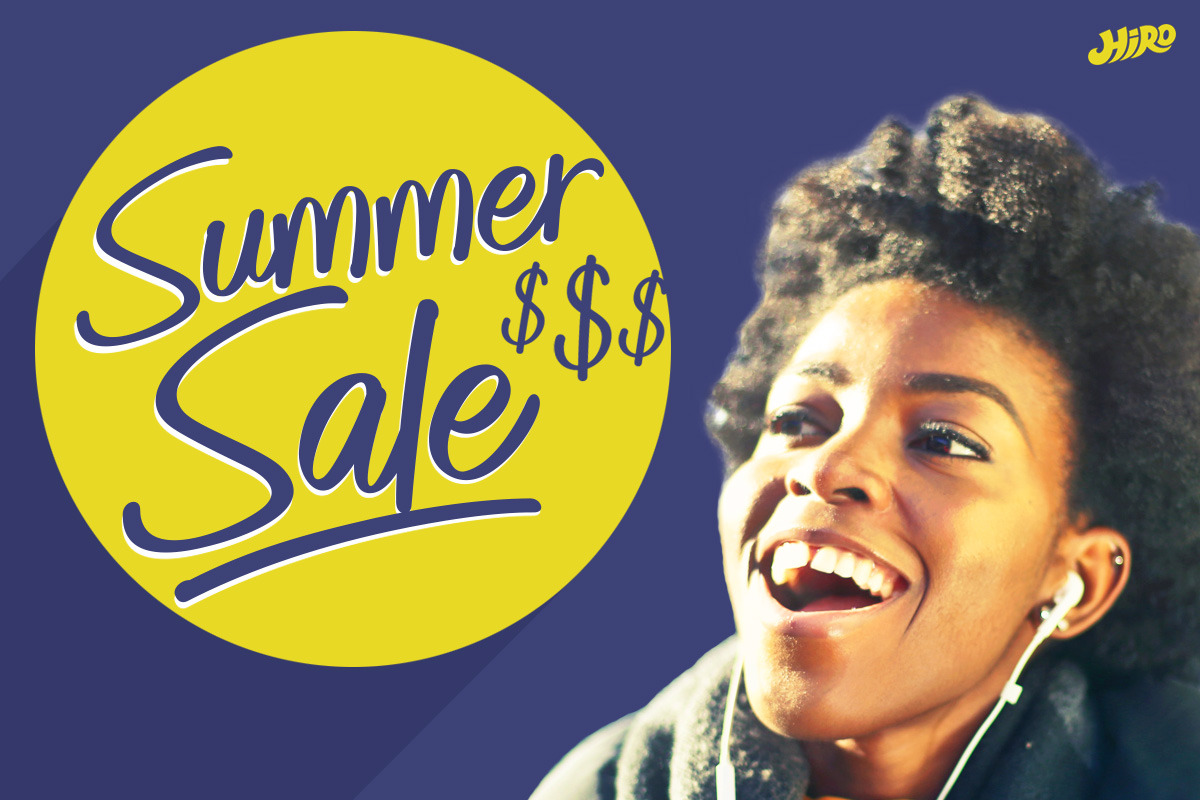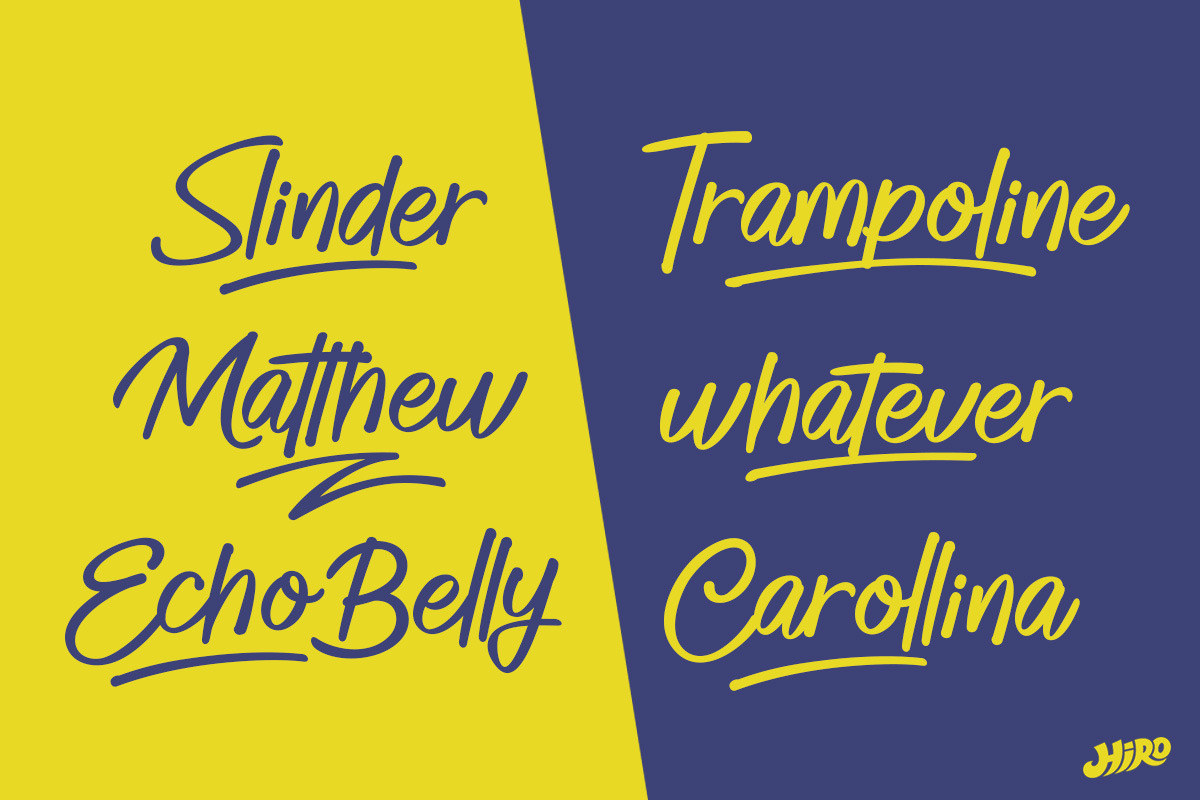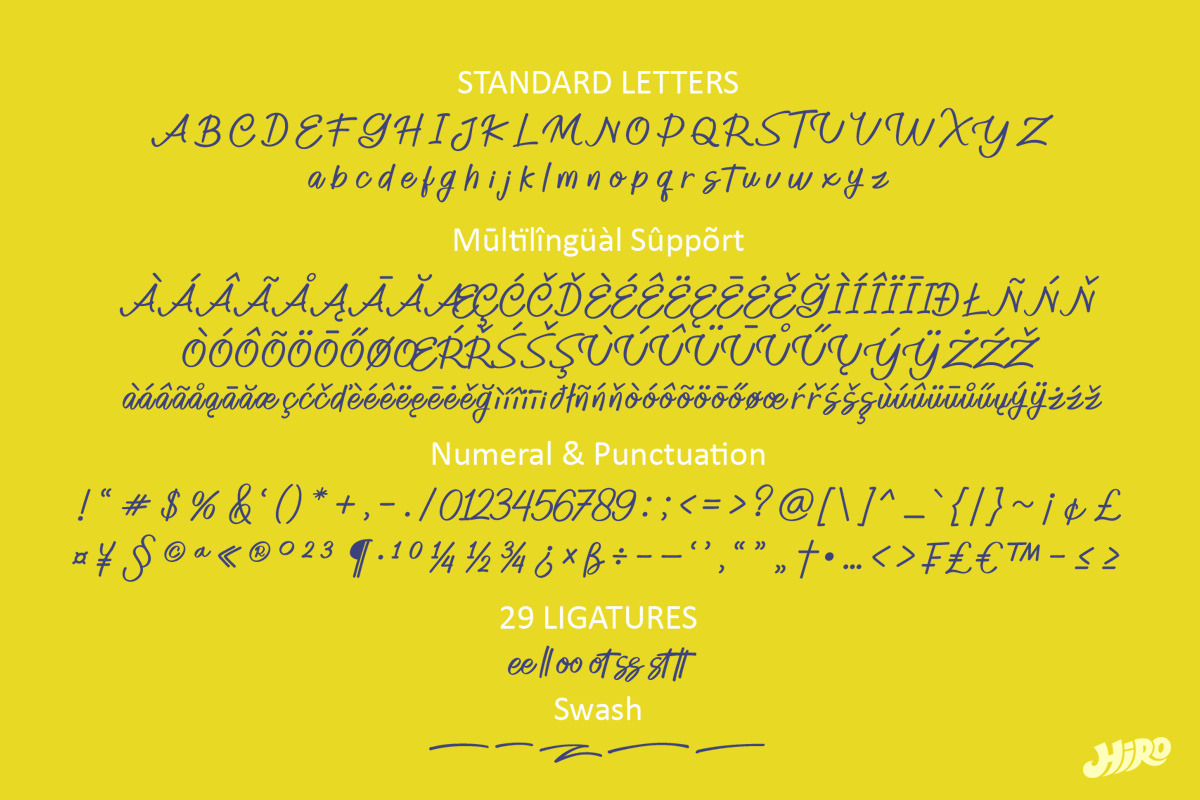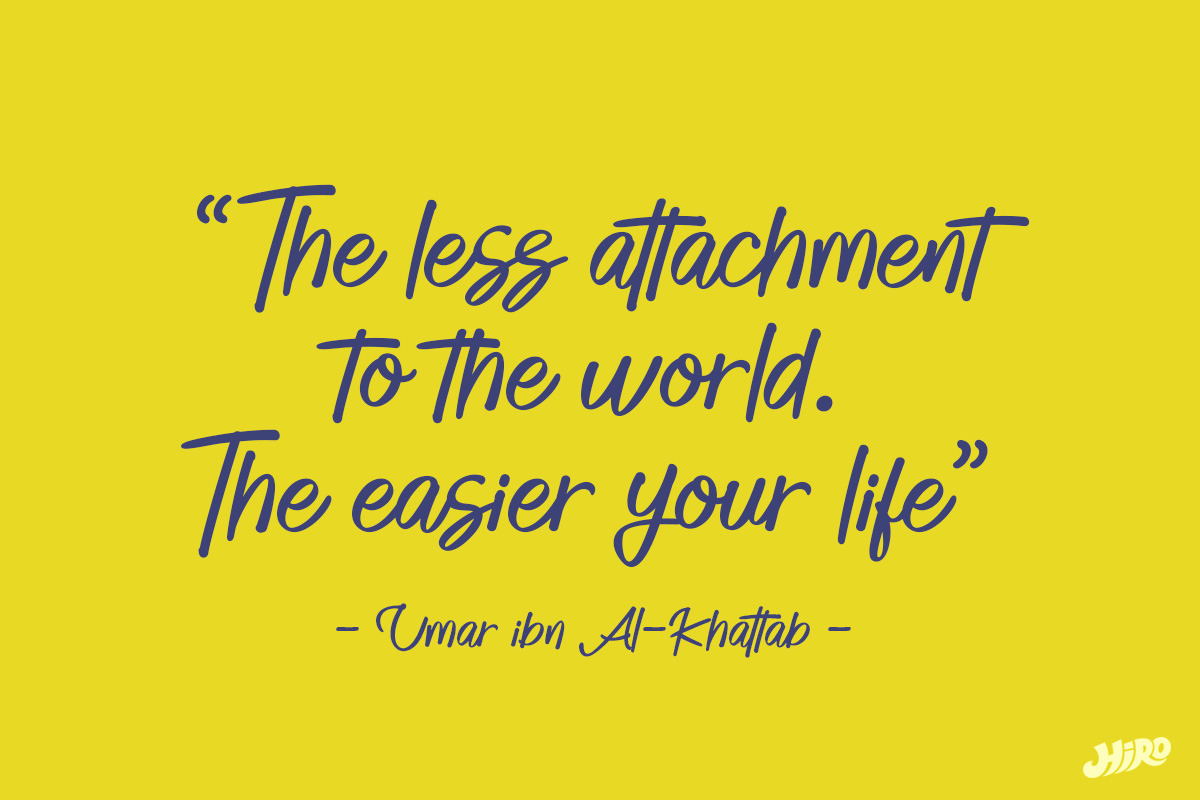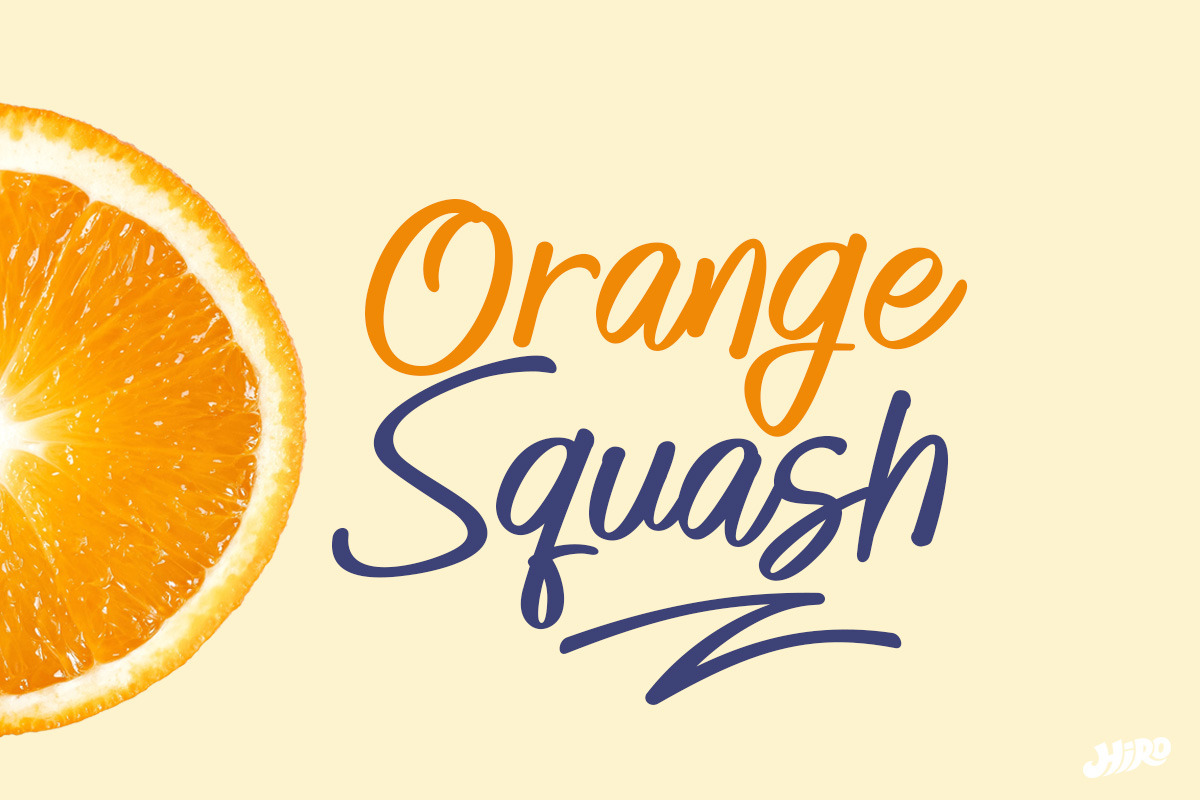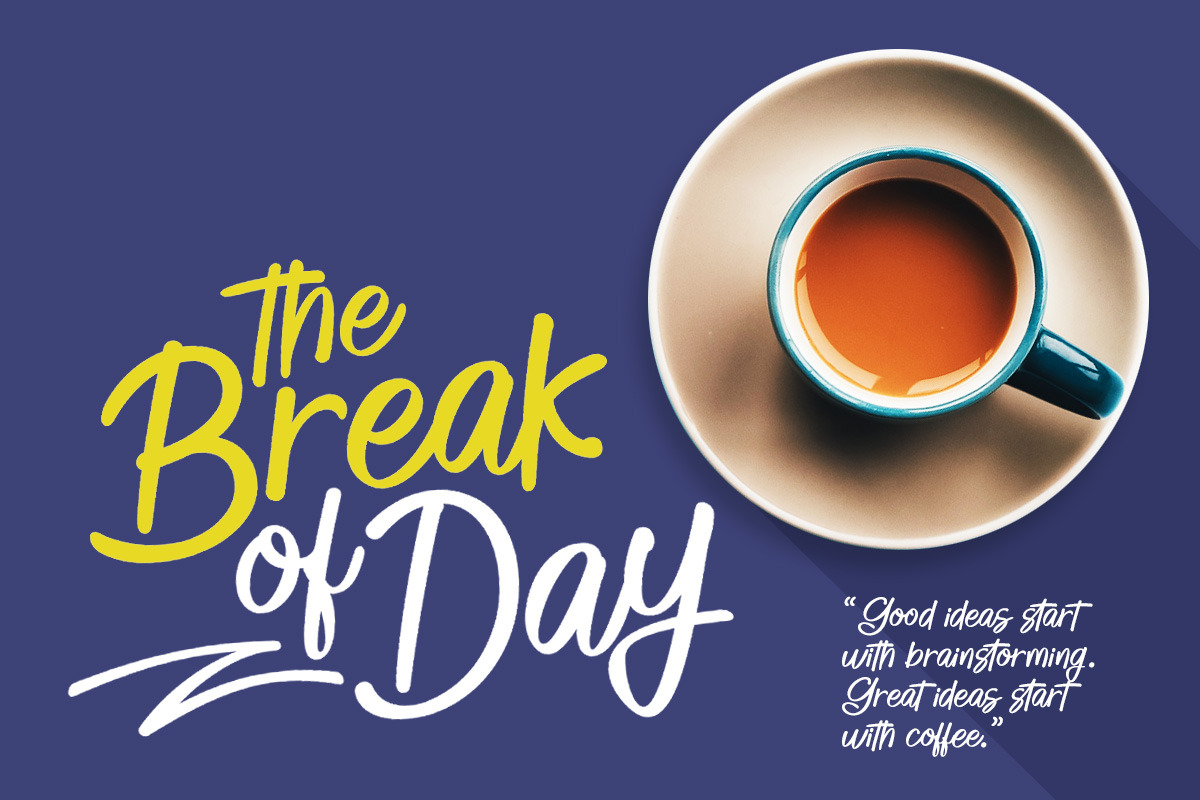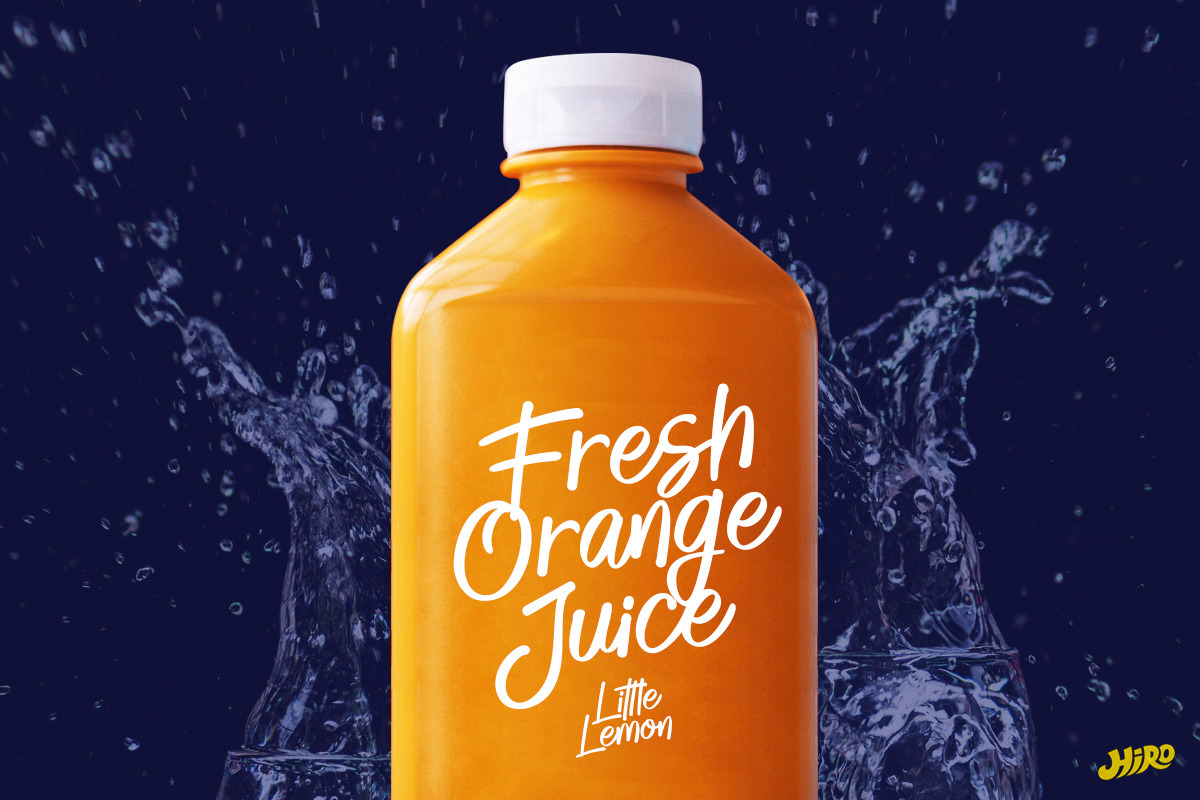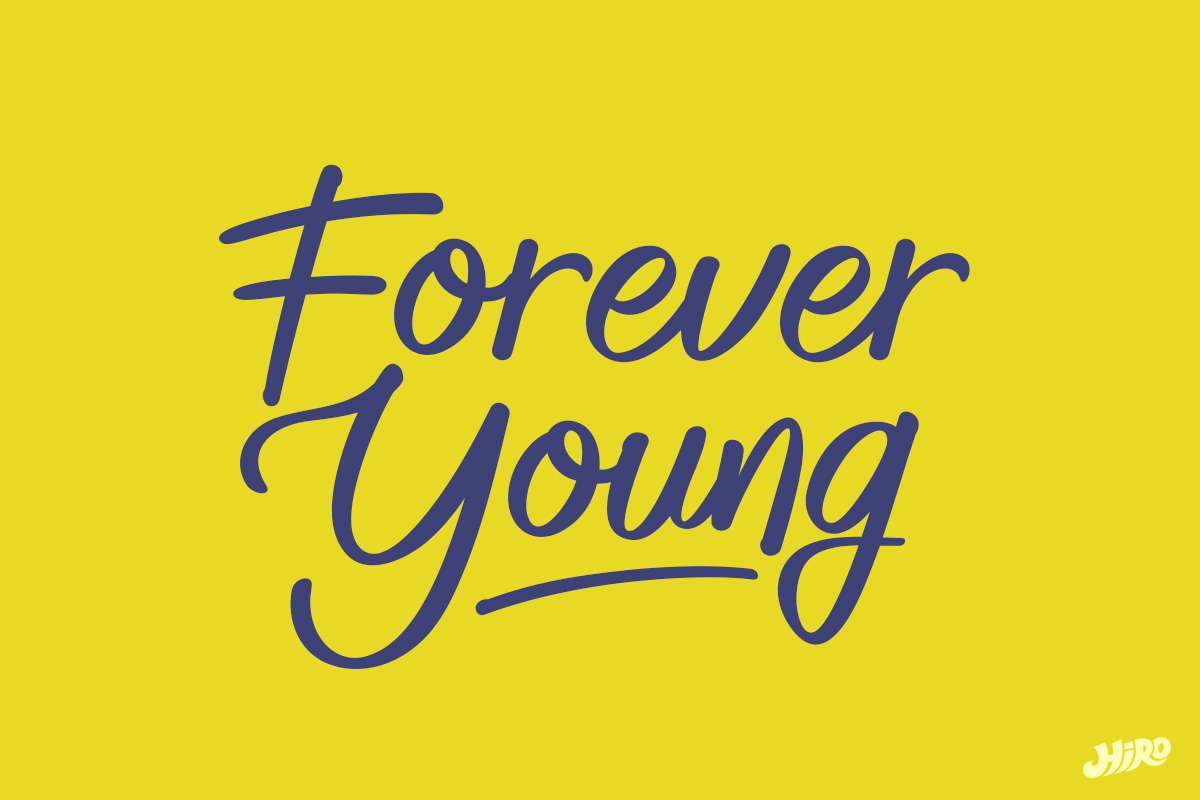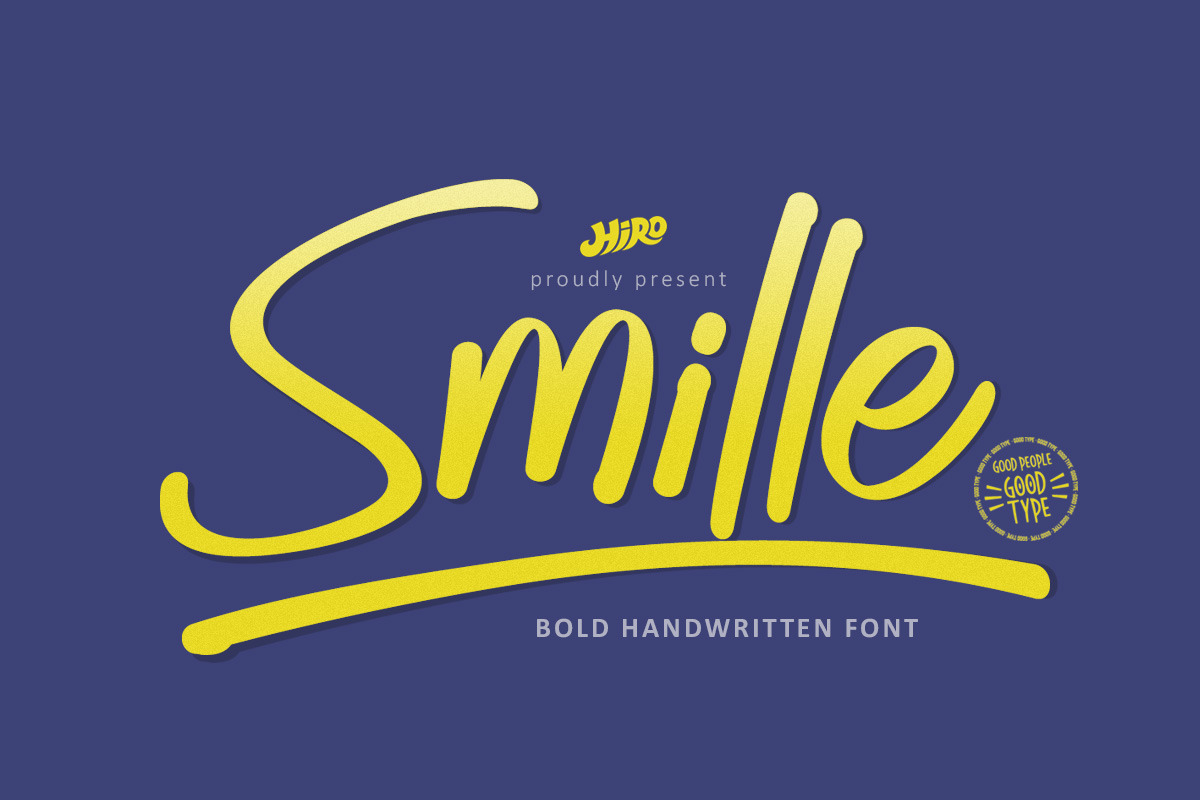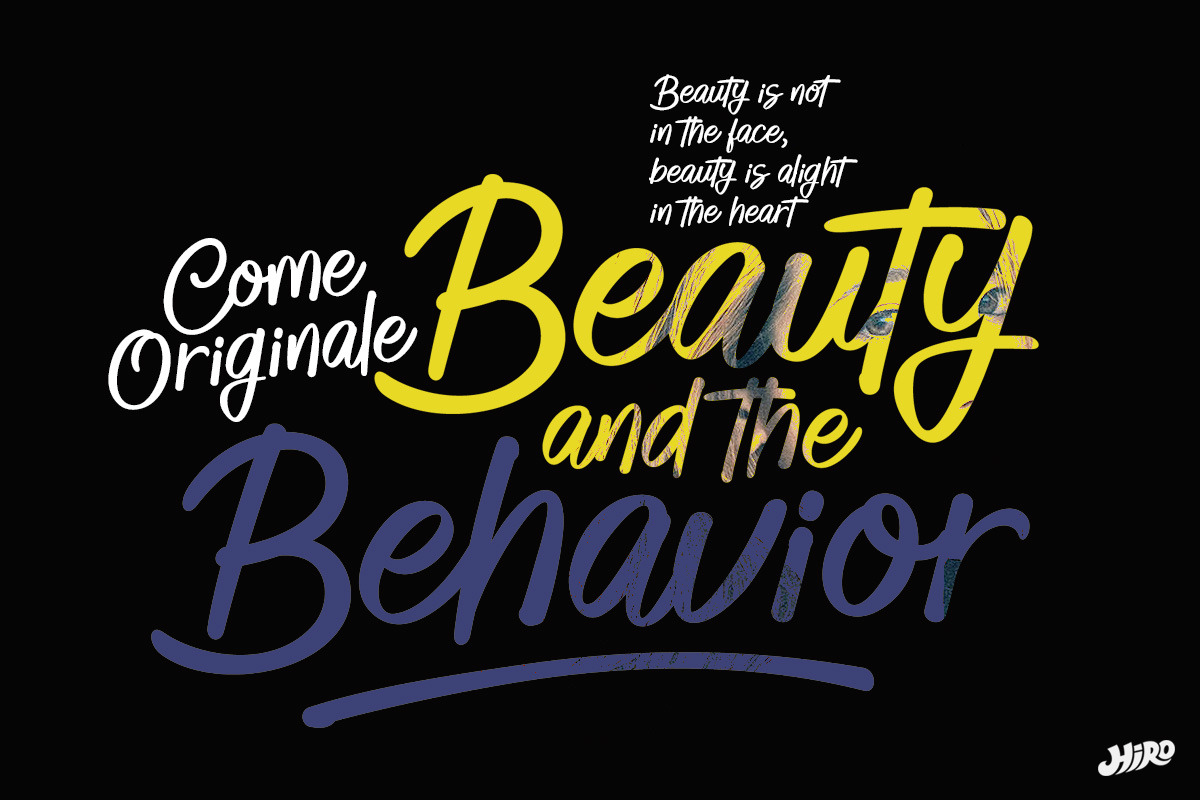
Smille - Bold Handwritten Font
Smille typeface
This font describes about funny, dynamic, humanist, easy going, easy to use and will bring a good harmony when the letters are connected and paired each other.
- Support Opentype Features
- Support Ligatures
USE Smille works great in any branding, logotype, social media posts, advertisements, product packaging, product designs, label, invitation, stationery and any projects that need handwriting brush taste.